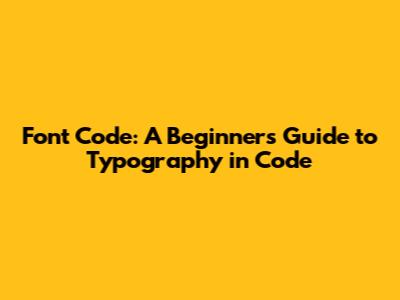
TrueType Font (TTF): TTF is one of the oldest and most widely supported font formats. Developed by Apple and Microsoft in the late 1980s, TTF fonts use quadratic Bézier curves for their outlines, offering good quality and scalability. TTF is compatible with virtually all operating systems, making it a safe choice for general use. However, TTF files can be relatively large, which might impact your website's loading time if not optimized correctly. Ensure you compress your TTF files using tools like Gzip to mitigate this issue.
OpenType Font (OTF): OTF is an extension of TTF and incorporates more advanced typographic features. Developed jointly by Adobe and Microsoft, OTF supports both quadratic Bézier curves (like TTF) and cubic Bézier curves (like PostScript fonts). OTF fonts can contain thousands of glyphs and advanced typesetting features like ligatures, contextual alternates, and swashes. This format is ideal for projects that require fine typographic control and rich character sets. Like TTF, OTF is universally supported but benefits from compression to reduce file size. Furthermore, OTF fonts can store both PostScript (CFF) and TrueType outlines, offering flexibility in rendering.
Web Open Font Format (WOFF): WOFF was specifically designed for use on the web to provide better compression and licensing protection compared to TTF and OTF. WOFF files are essentially compressed versions of TTF or OTF fonts, resulting in smaller file sizes and faster download times. The WOFF format includes metadata that can contain licensing information, which helps protect font foundries. WOFF is supported by most modern browsers, making it a reliable choice for web typography. Using WOFF can significantly improve your website's performance, especially for sites with heavy font usage. The superior compression of WOFF makes it a go-to format for web developers.
Web Open Font Format 2.0 (WOFF2): WOFF2 is the successor to WOFF and offers even better compression using the Brotli algorithm. WOFF2 provides a significant reduction in file size compared to WOFF, leading to faster page load times and improved user experience. This format is highly recommended for modern web projects, as it balances excellent compression with broad browser support. Although older browsers might not fully support WOFF2, modern versions of Chrome, Firefox, Safari, and Edge handle it seamlessly. Transitioning to WOFF2 is a smart move for optimizing your website's typography performance.
Embedded Open Type (EOT): EOT is a compact font format developed by Microsoft and used primarily by Internet Explorer. EOT fonts use a form of compression and subsetting to reduce file sizes and protect font data. While EOT was once necessary for achieving consistent typography in older versions of IE, it has largely been superseded by WOFF and WOFF2. Modern web developers rarely use EOT unless they need to support legacy browsers. For most contemporary projects, focusing on WOFF and WOFF2 will provide better results and broader compatibility.
Understanding font code is essential for web developers and designers who want precise control over typography in their projects. Fonts are more than just how text looks; they contribute significantly to the overall user experience and brand identity. This comprehensive guide will walk you through the basics of font code, covering everything from font formats to implementation strategies, ensuring your text is both visually appealing and technically sound.
Understanding Font Formats
When diving into the world of font code, the first thing you'll encounter is different font formats. These formats determine how the font data is stored and rendered on various platforms. Knowing the strengths and weaknesses of each format is crucial for optimizing your website's performance and ensuring cross-browser compatibility. Let's explore some of the most common font formats:
Choosing the right font format involves balancing compatibility, file size, and typographic features. For most modern web projects, WOFF2 is the preferred format due to its excellent compression and wide browser support. If you need to support older browsers, consider providing WOFF as a fallback. Avoid using EOT unless absolutely necessary. Always compress your font files using tools like Gzip or Brotli to further reduce their size and improve your website's performance. By understanding these font formats, you can make informed decisions that optimize both the visual appeal and technical efficiency of your typography.
Implementing Fonts with CSS
Once you understand font formats, the next step is to implement them using CSS. Font code primarily revolves around CSS rules that specify which fonts to use and how to render them. The @font-face rule is the cornerstone of this process, allowing you to define custom fonts for your web project. Let's delve into the specifics of using @font-face and other relevant CSS properties.
The @font-face Rule
The @font-face rule is a CSS at-rule that allows you to link external font files to your web page. This enables you to use custom fonts that are not part of the standard web-safe font stack. Here's a basic example of how to use @font-face:
@font-face {
font-family: 'MyCustomFont';
src: url('MyCustomFont.woff2') format('woff2'),
url('MyCustomFont.woff') format('woff');
font-weight: normal;
font-style: normal;
}
In this example:
font-familydefines the name you'll use to refer to this font in your CSS styles. Choose a descriptive name that reflects the font's identity.srcspecifies the location of the font files. You can provide multiple URLs for different font formats to ensure cross-browser compatibility. Theformat()function indicates the format of each font file.font-weightandfont-styledefine the weight and style of the font. Common values forfont-weightincludenormal,bold,lighter, andbolder. Values forfont-styleincludenormal,italic, andoblique.